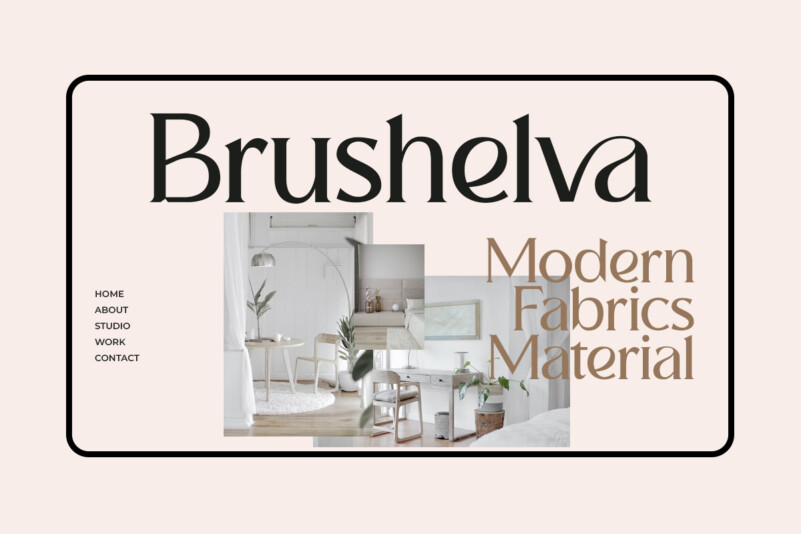
Brushelva Font
Brushelva Font is a traditional font for the classic sans serif type. A simple font, with a thin size, adds an elegant and classy impression. This typeface is perfect for an elegant logo, branding, travel promotion, layout magazine, beauty product, packaging product, quotes, or simply as a stylish text overlay to any background image.